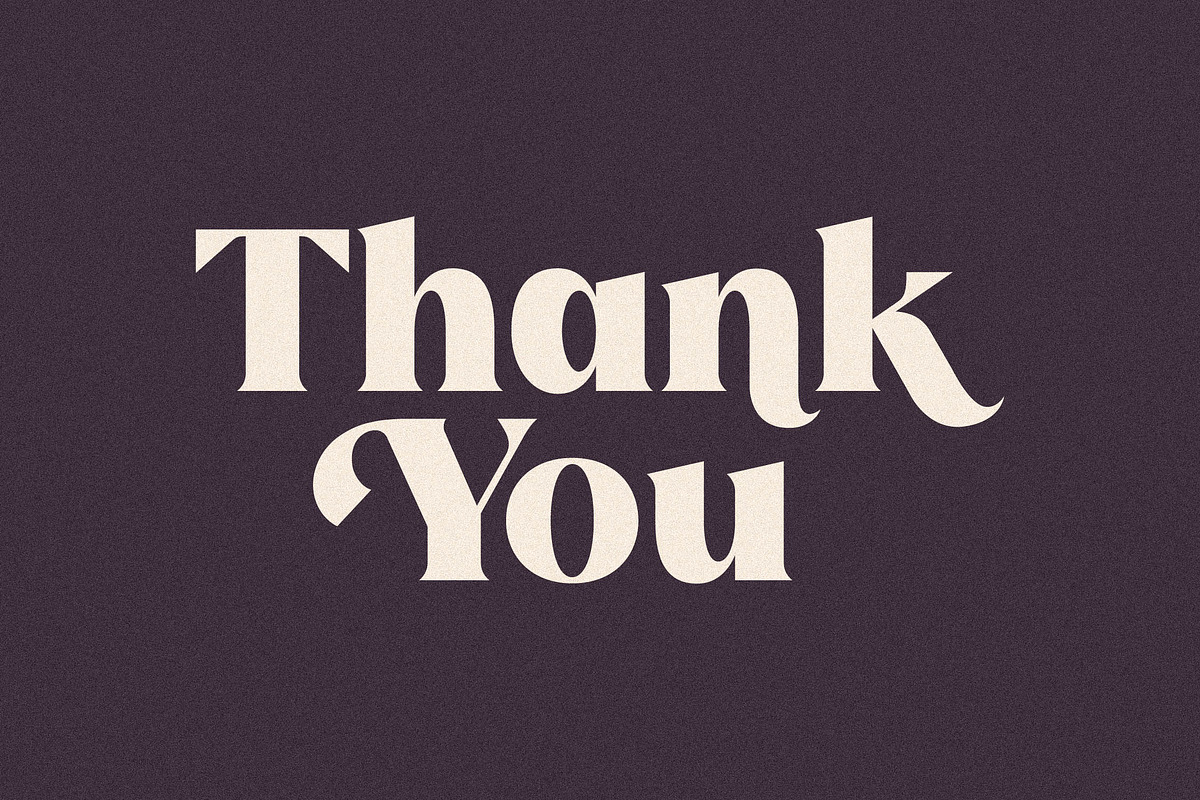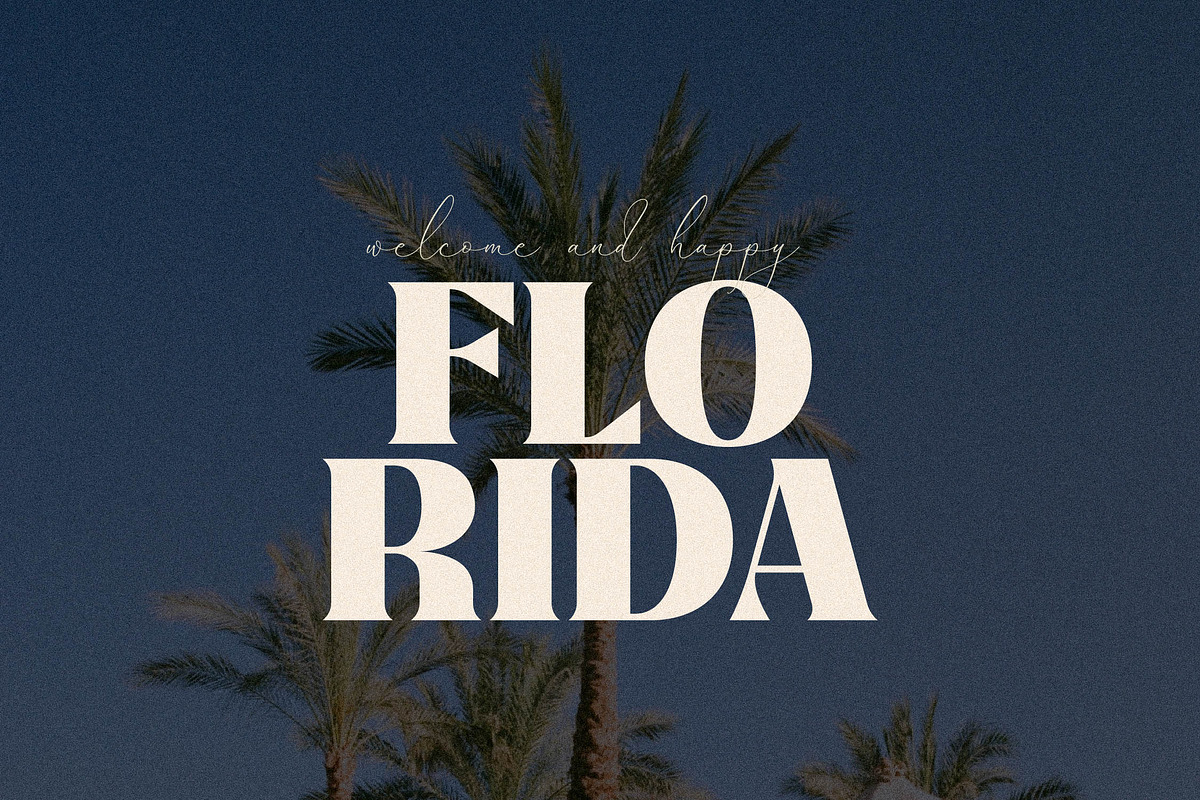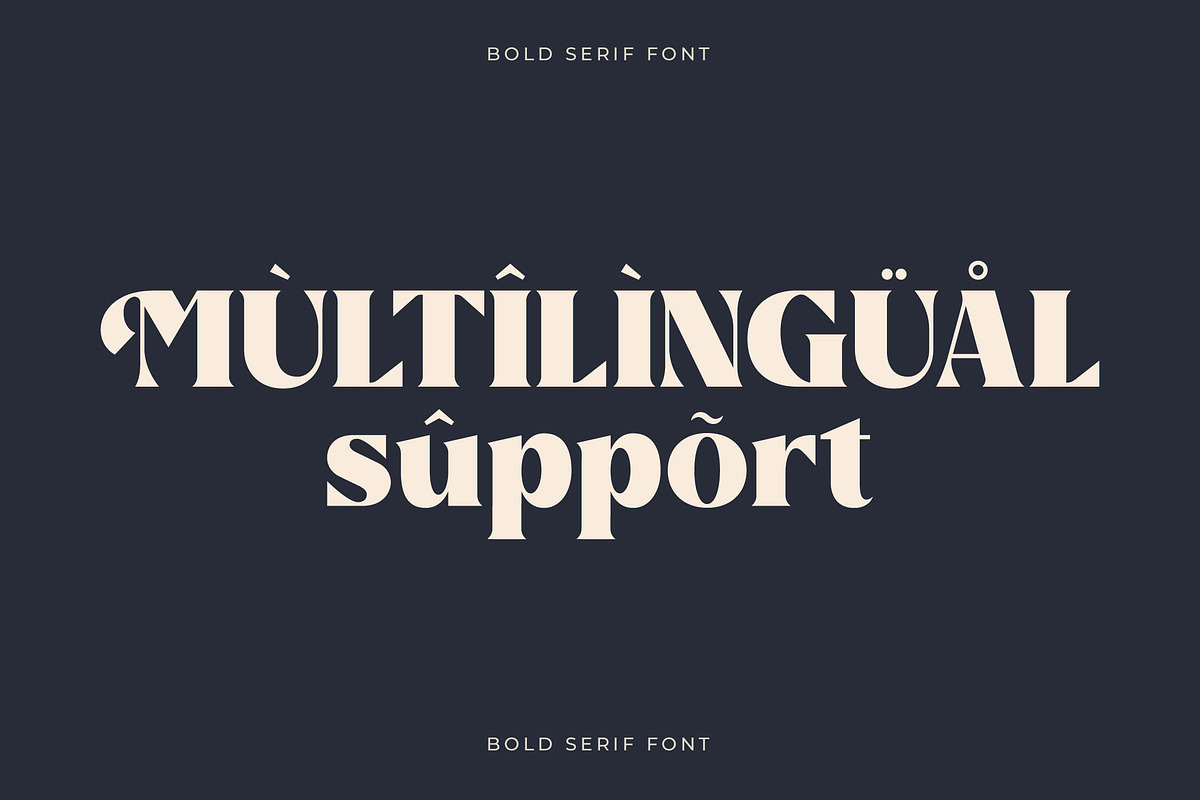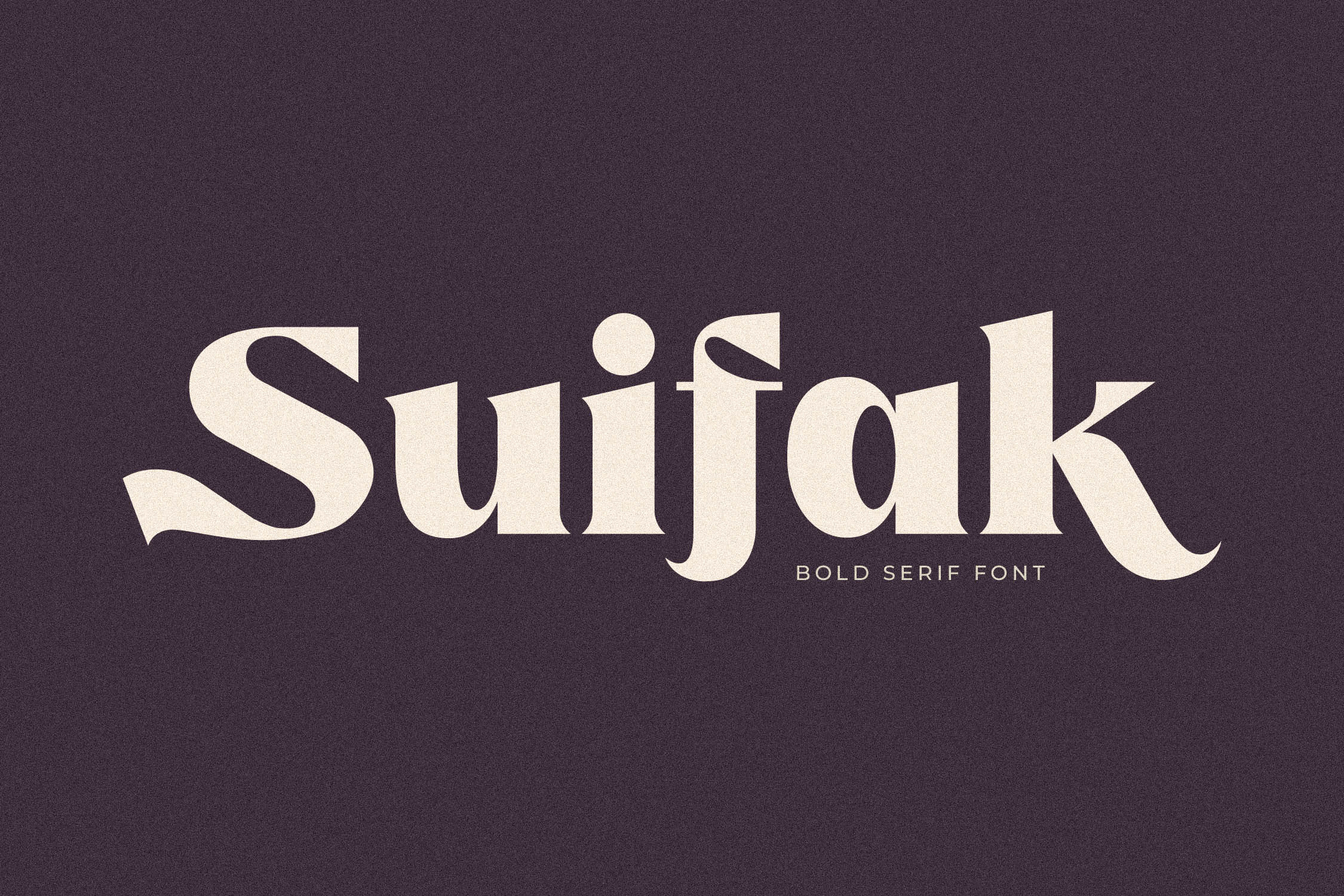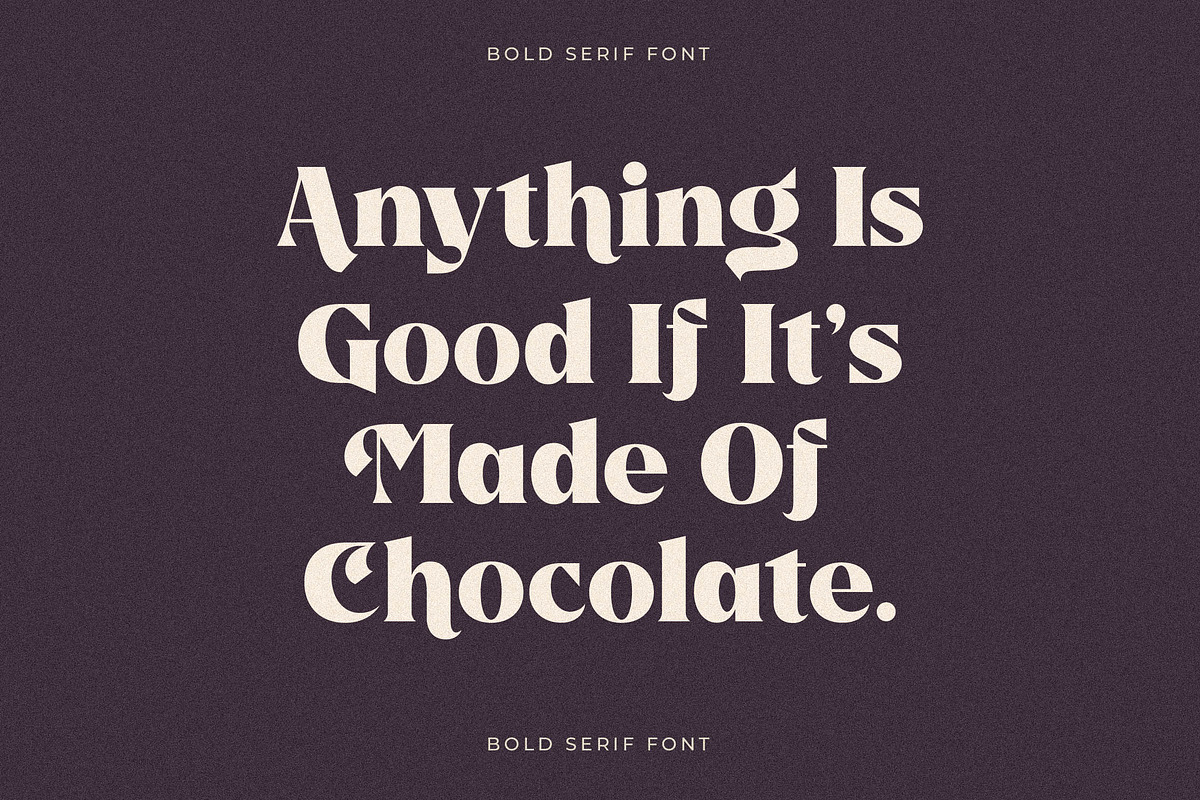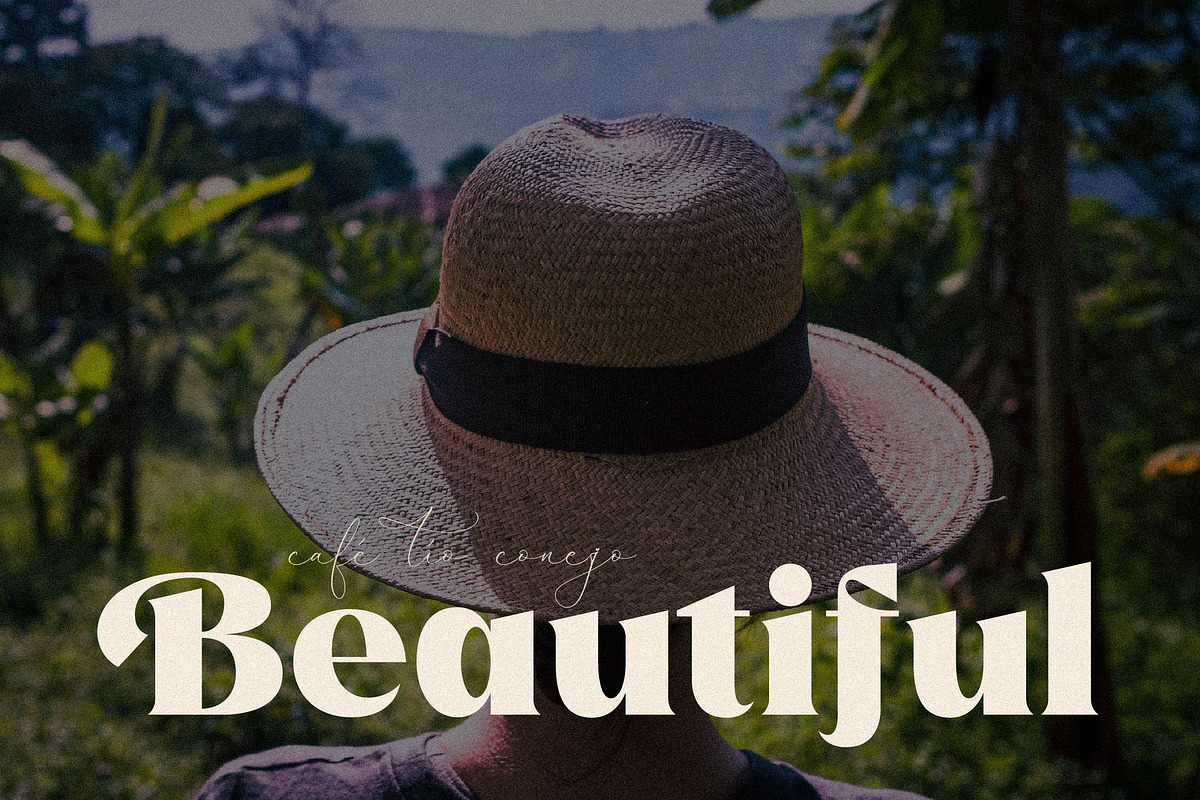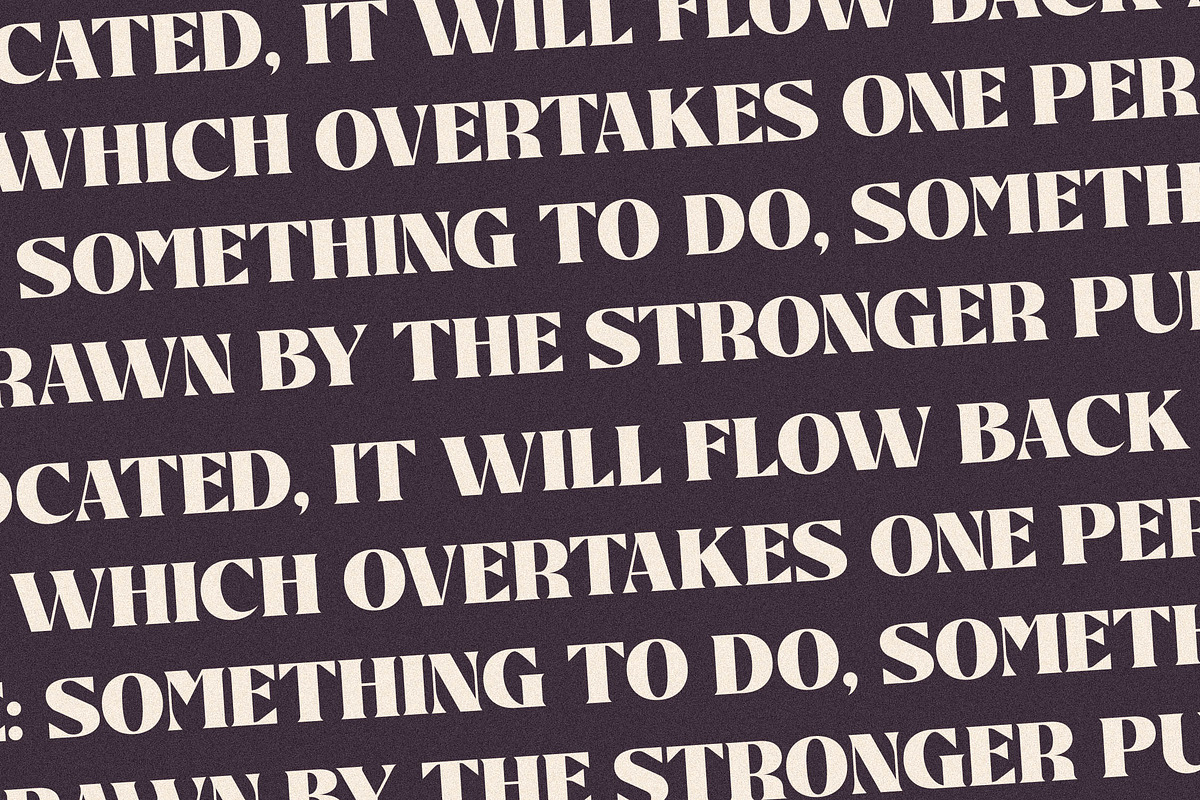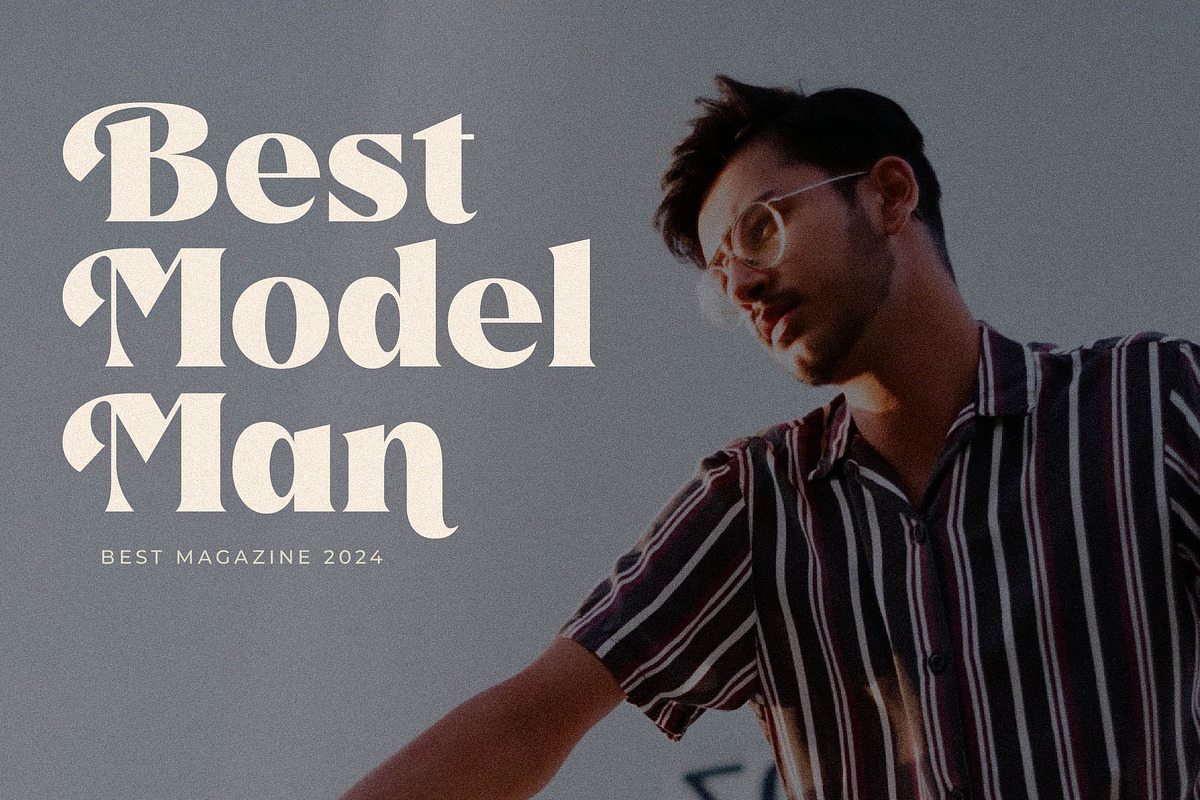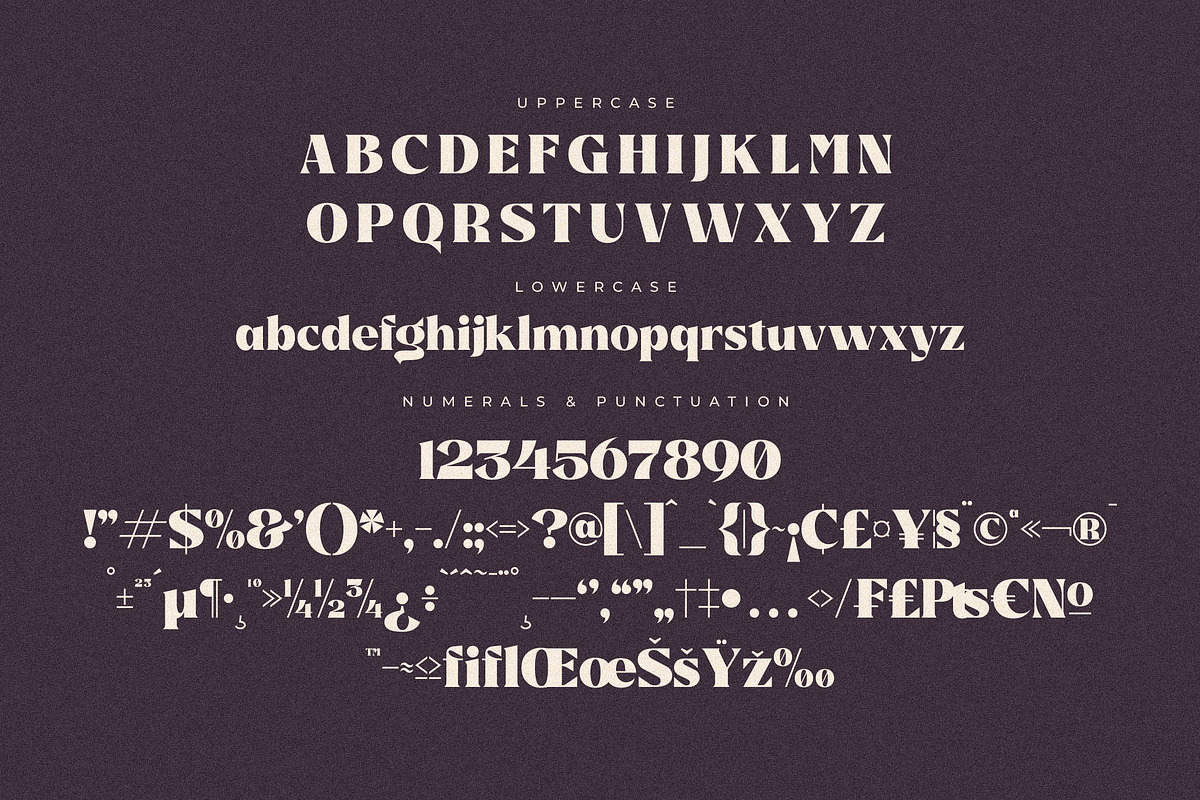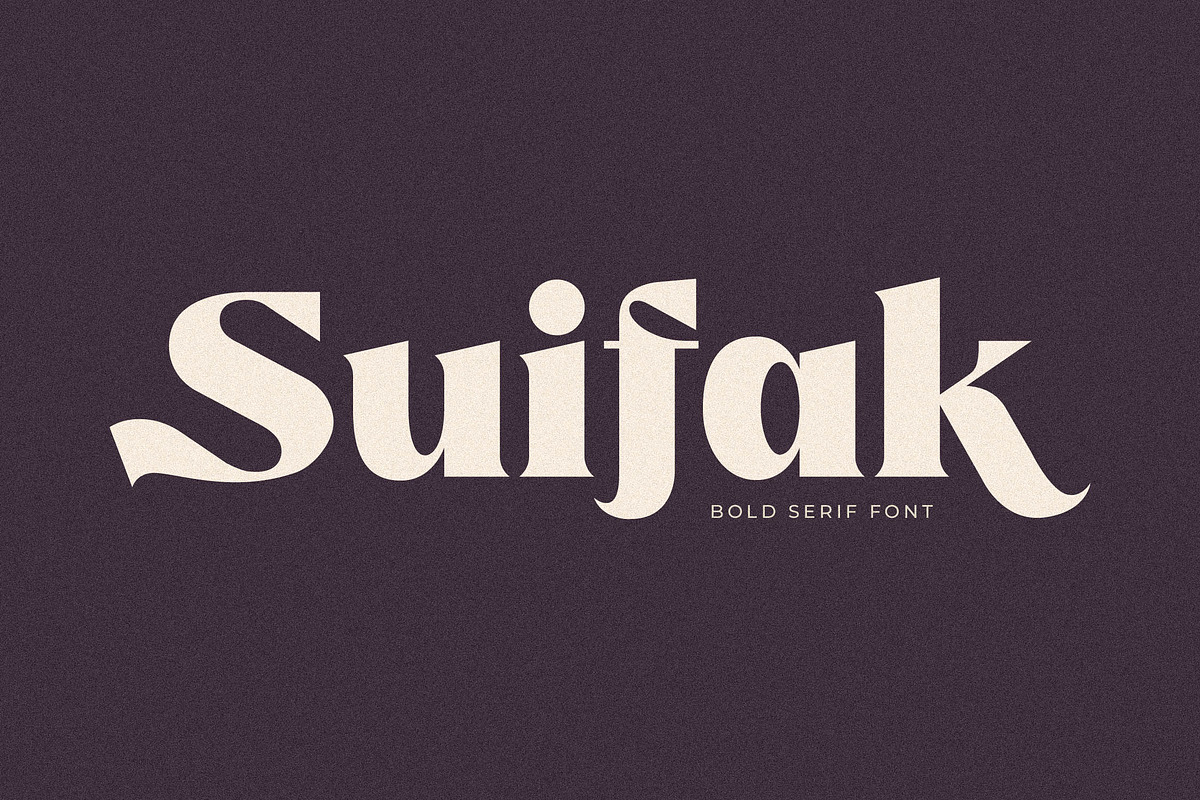
Suifak Bold Serif Font
Proudly present Suifak Typeface , created by Storytype, A serif modern and classic typeface that has own unique style & modern look. This typeface is perfect for an elegant & luxury logo, book or movie title design, fashion brand, magazine, clothes, lettering, quotes, and so much more.